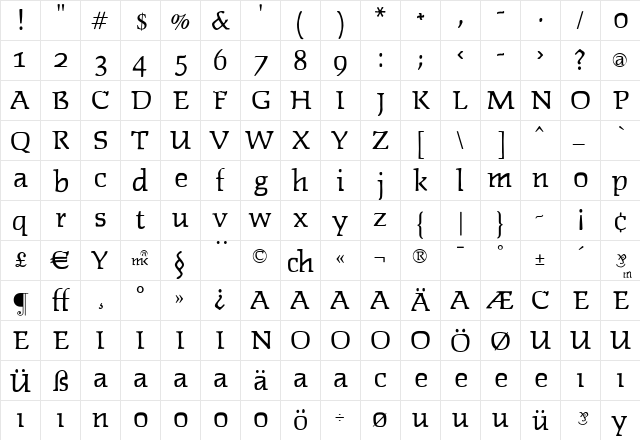
Faustant Regular
Design Context for Faustant Typeface
Faustant takes a measured approach to typography — its balanced proportions and neutral character make it a reliable workhorse for both digital and print work.